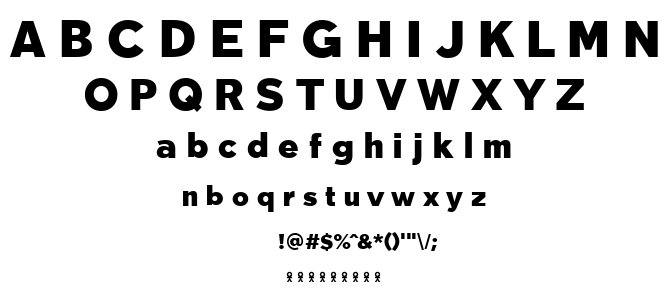
These fonts of Swiss style are specially made for publishing or advertising graphic design thanks to its range of weights, excellent readability and advanced OpenType features in the retail version.